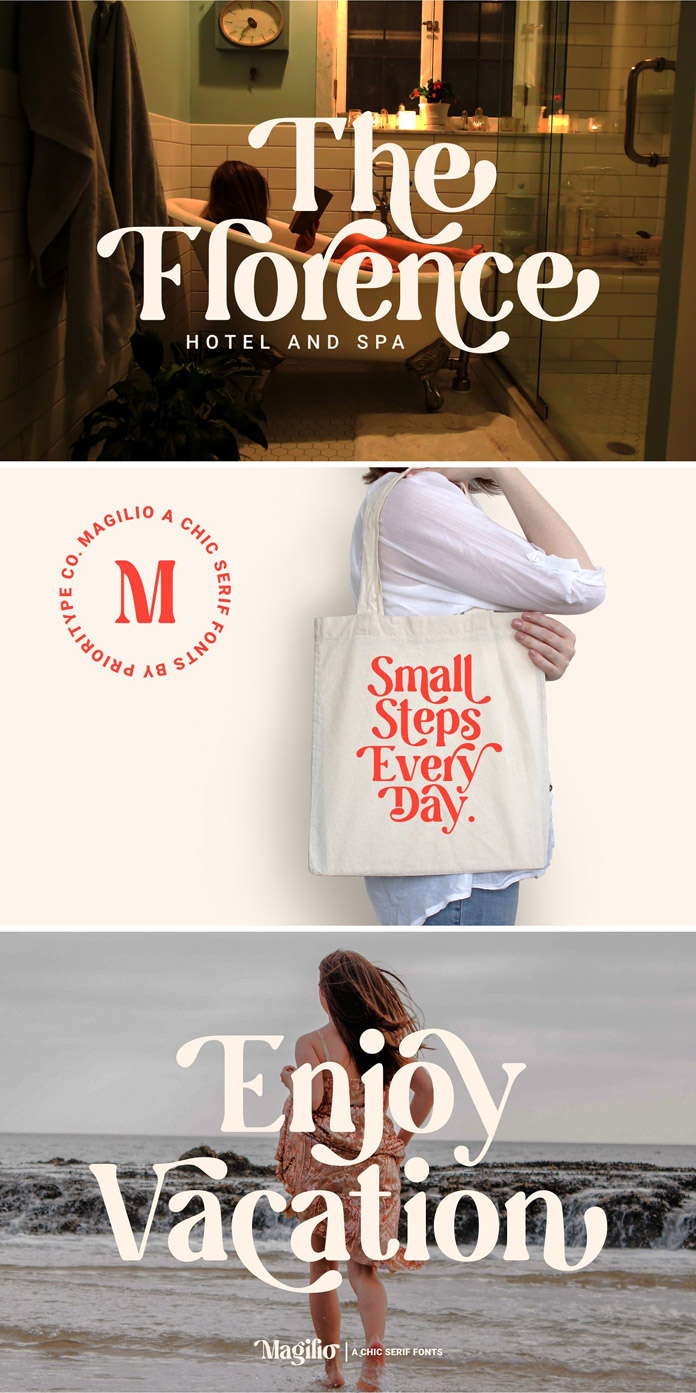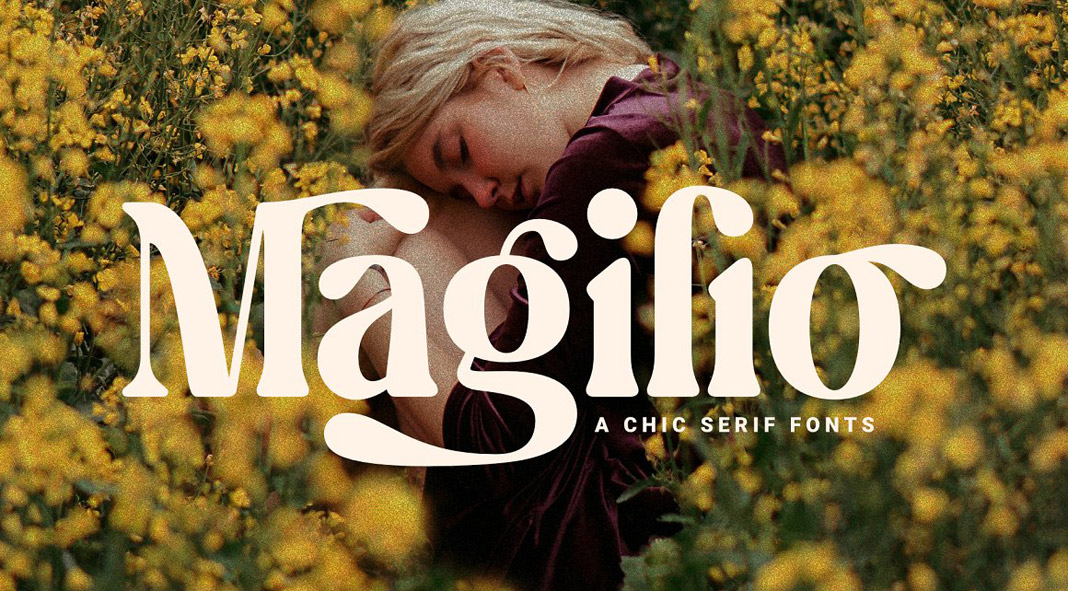
Take a look at Magilio, a chic serif font designed by Prioritype.
Inspired by good old vintage serif typefaces, the Magilio font is characterized by beautiful and soft shapes. It was made by Prioritype with plenty of alternative characters to make it easier for you to create different design projects.
You can use the Magilio font for various designs such as social media posts, logos, book covers, posters, video content thumbnails, quotes, landing pages, wedding invitations, and so much more. To make use of all OpenType features, you need graphic design software such as InDesign, Photoshop, or Illustrator. Magilio comes in two versions, a regular and an italic style. Just click on one of the following links to learn more about this beautiful vintage-inspired font.